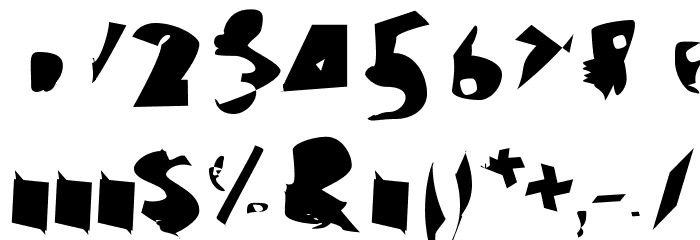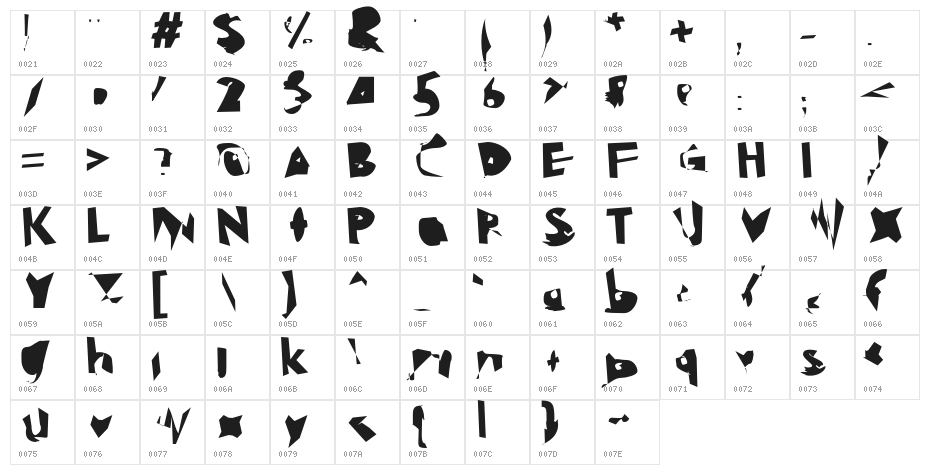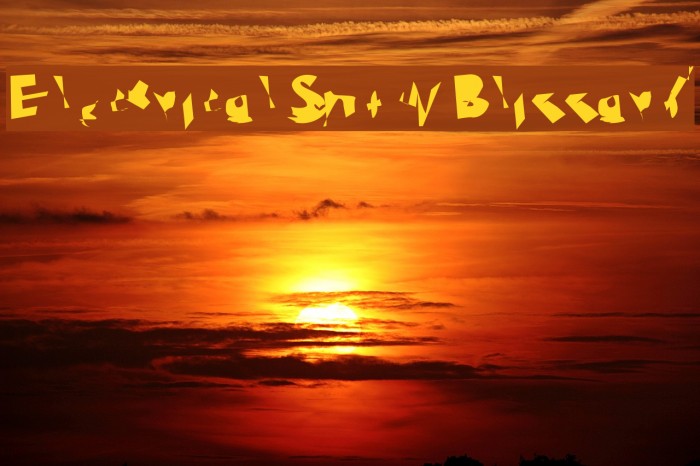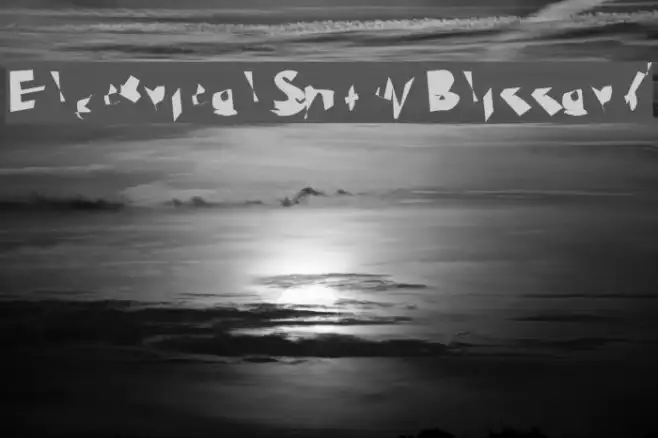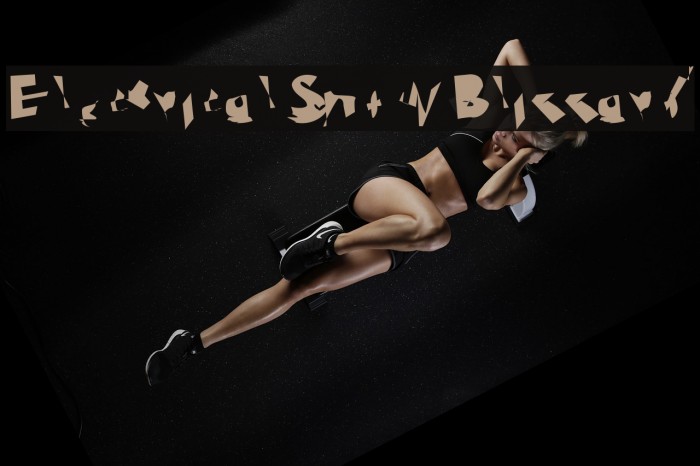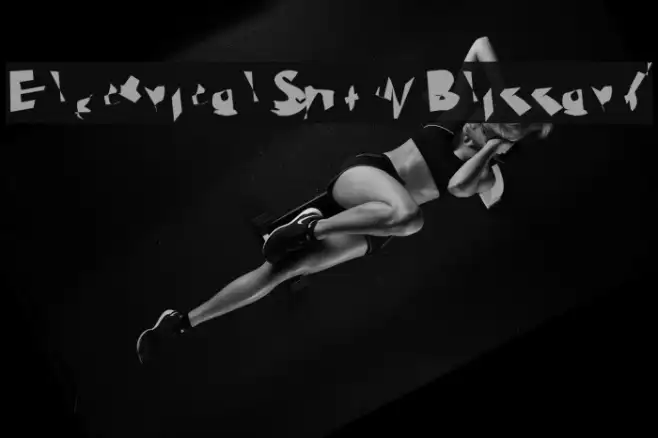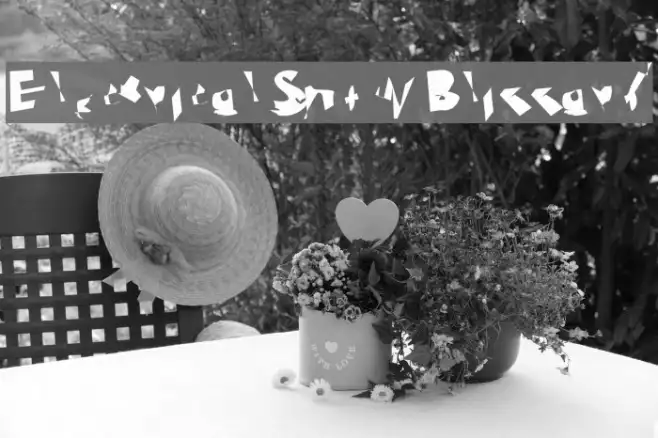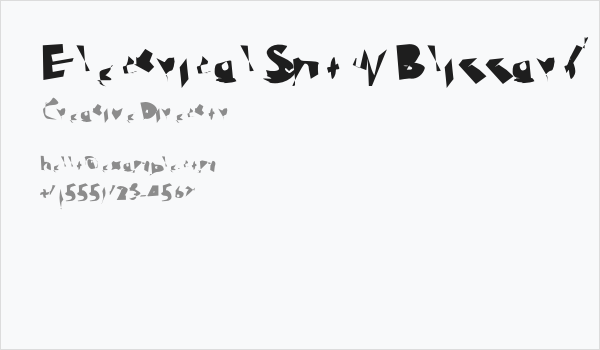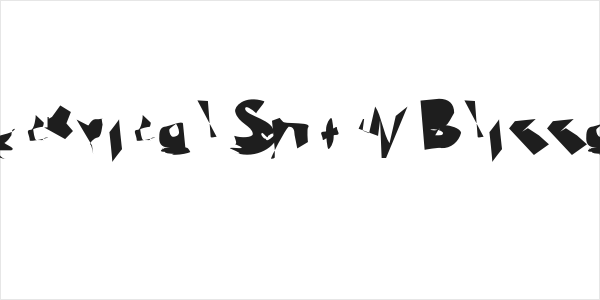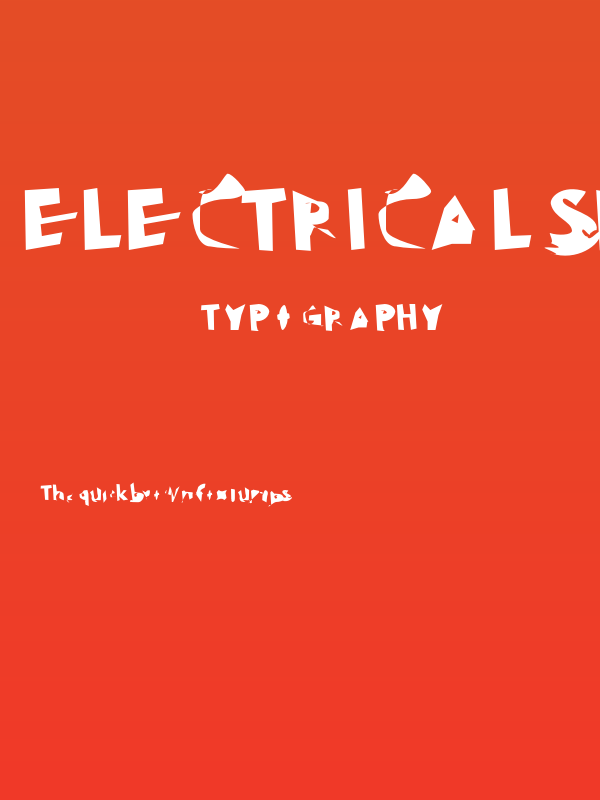
Electrical Snow Blizzard Font
Electrical Snow Blizzard Description
This font features a highly irregular and jagged design, reminiscent of torn paper or shattered glass. Each character is uniquely distorted, creating a chaotic and dynamic visual effect. The uppercase and lowercase letters maintain a consistent level of distortion, giving the font a cohesive yet unpredictable appearance. The numbers and special characters follow the same design principles, ensuring uniformity across all glyphs. This font's edgy and fragmented style makes it stand out, ideal for projects that require a bold and unconventional look.
| Proposed Projects | Ideal for edgy posters, album covers, or any design needing a disruptive and bold statement. |